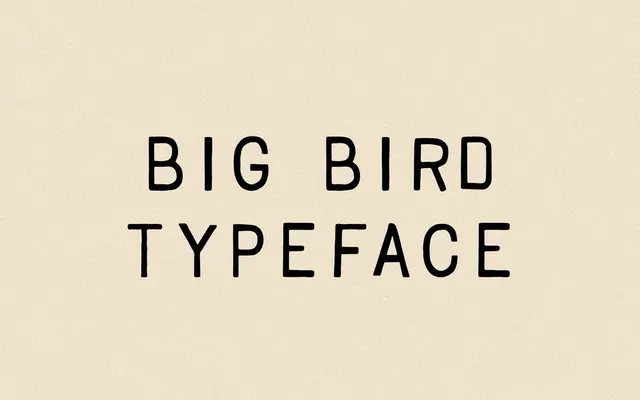
Big Bird
A single-weight vintage stamp typeface with intentional hand-drawn irregularities, evolved from the designer's earlier Birdie font.
Drawing on his earlier Birdie typeface but executed with a lighter touch, Taylor Penton has built a stamp-style display face loaded with subtle hand-drawn inconsistencies. The 151-glyph set covers Western European languages including Icelandic and Welsh, and ships as OTF with webfont formats included. Well suited to packaging, logos and branding work that calls for an unpolished, analogue quality.
A vintage-style stamp typeface with deliberate hand-drawn inconsistencies, placing it firmly in the display category as a decorative, textural face rather than a functional text typeface.